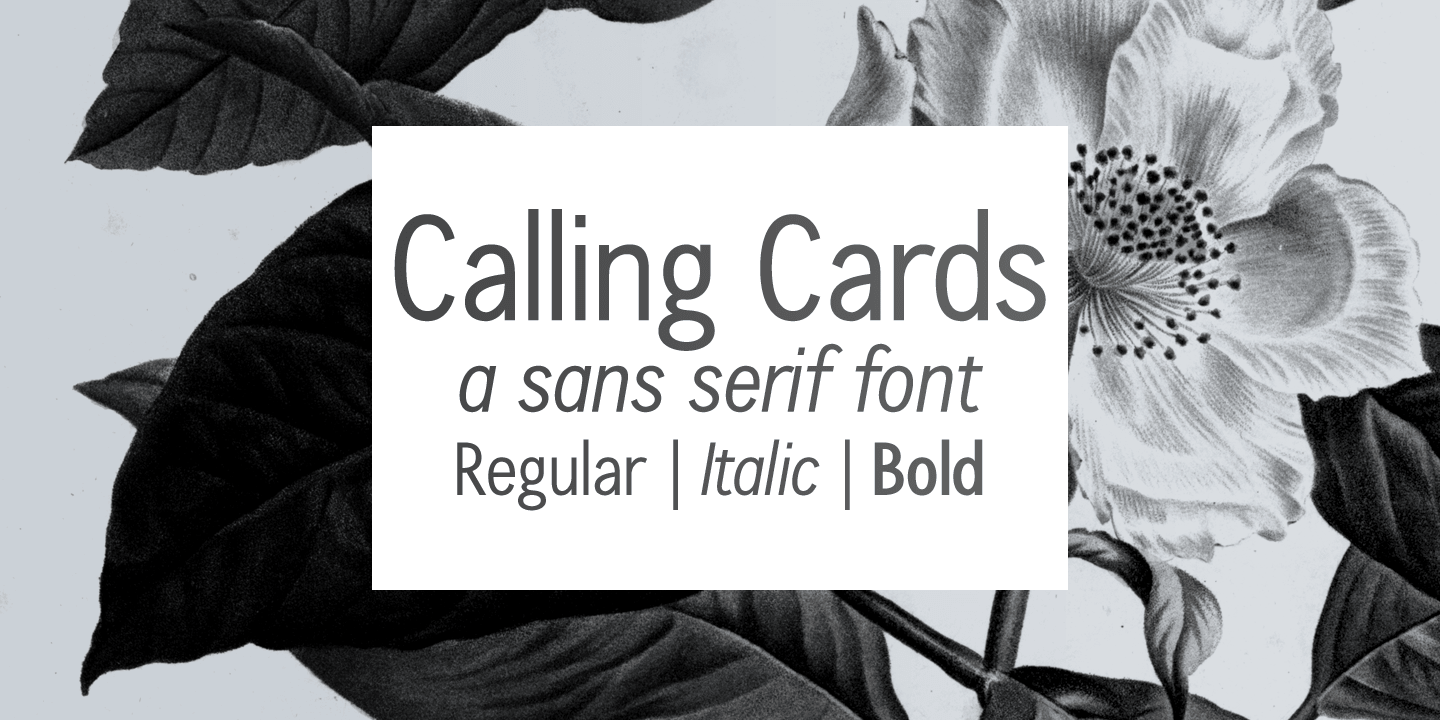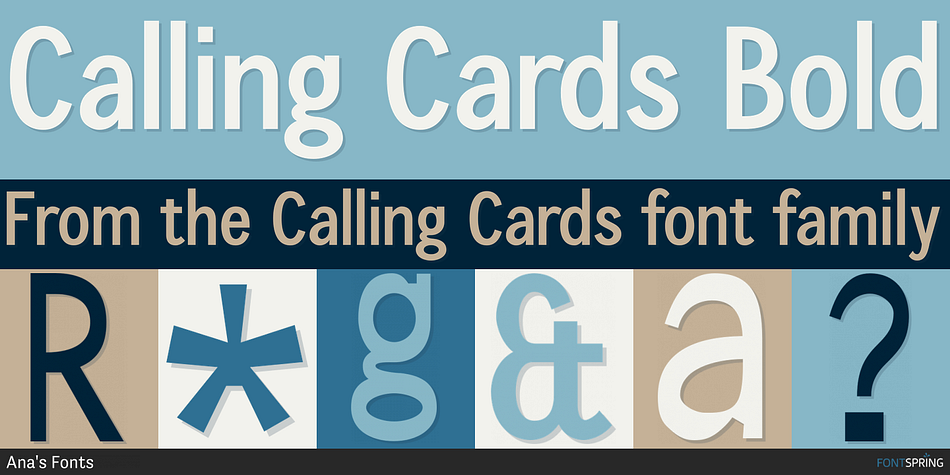
Calling Cards Bold
Designed by Ana Parracho, Calling Cards is a sans serif font family. This typeface has three styles and was published by Ana's Fonts.
Meet Calling Cards! A simple and clear sans-serif font family in 3 styles: Regular, Italic and Bold. Each font includes:
- a-z, A-z, 0-9, accents, punctuation
- ligatures
- stylistic alternates
It looks great in quotes, logos, print, and social media. Readable in short and long texts, at small and large font sizes.